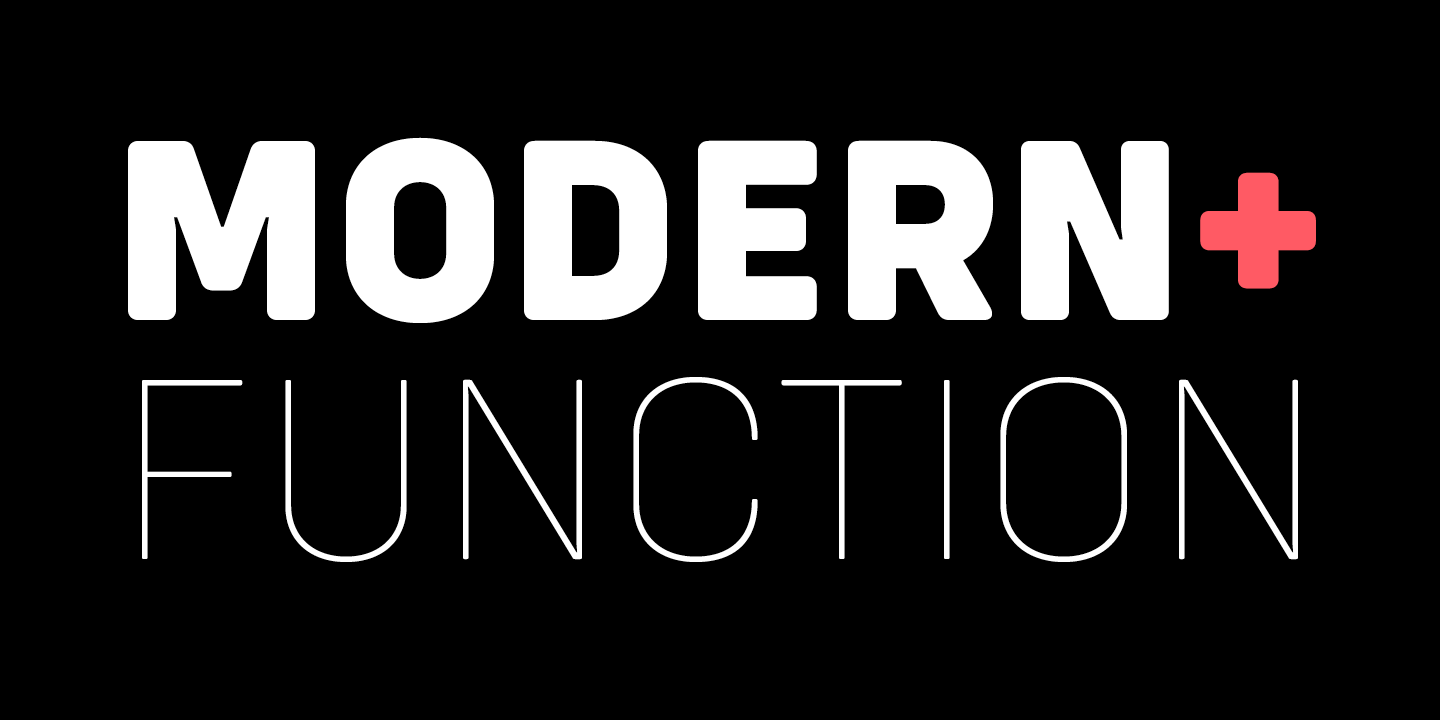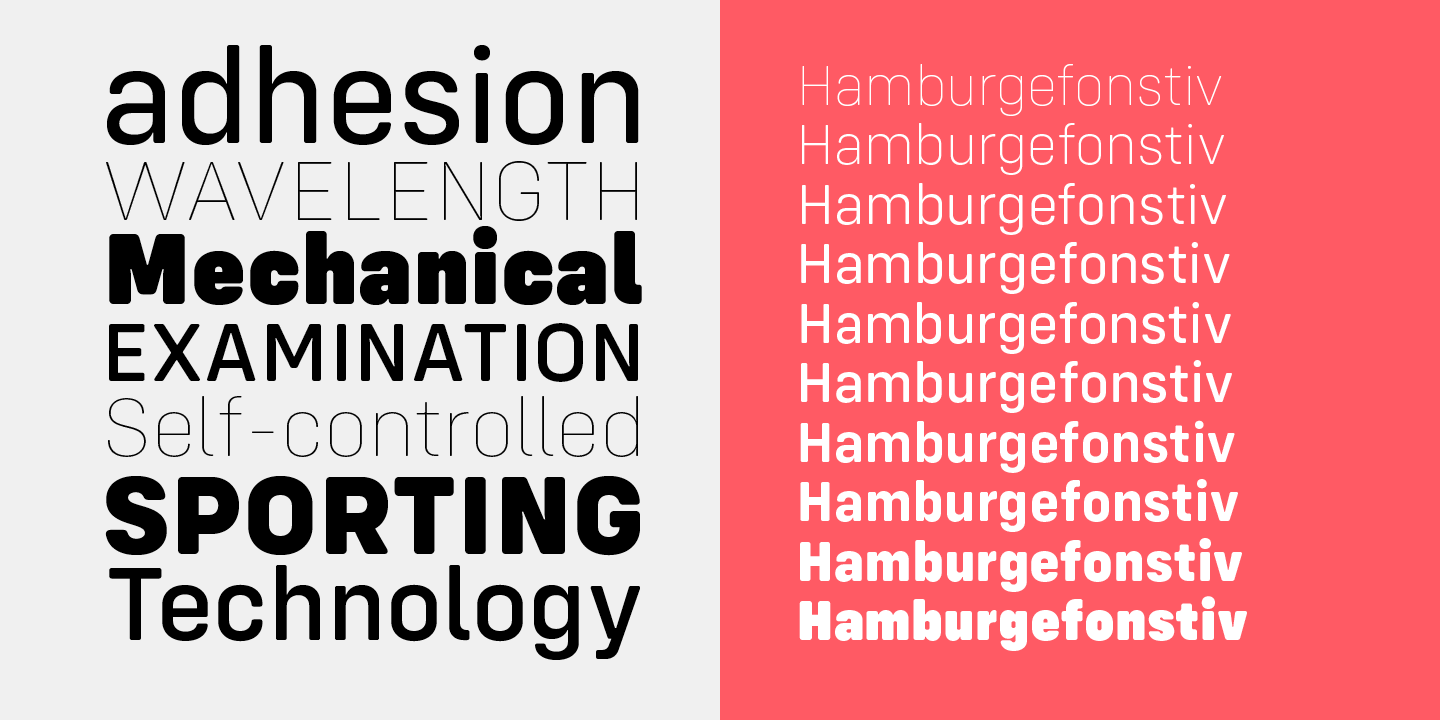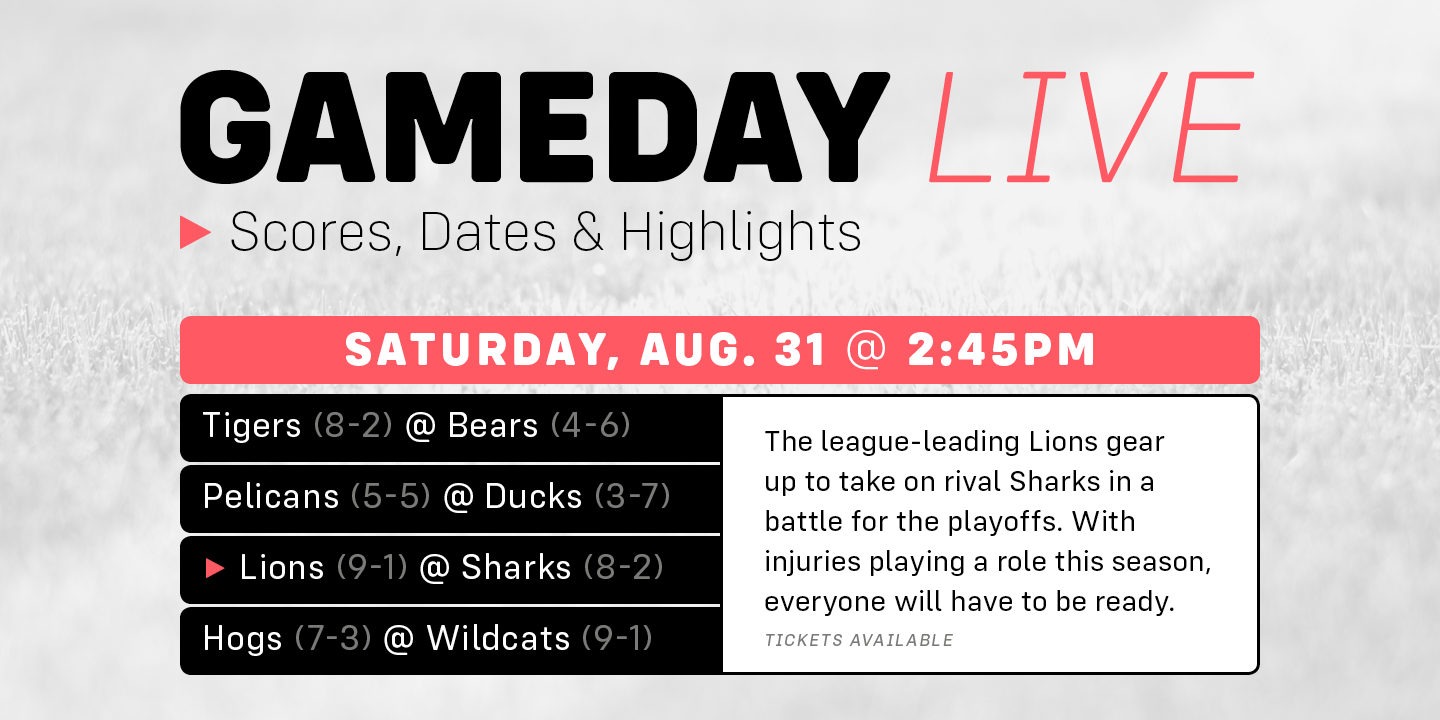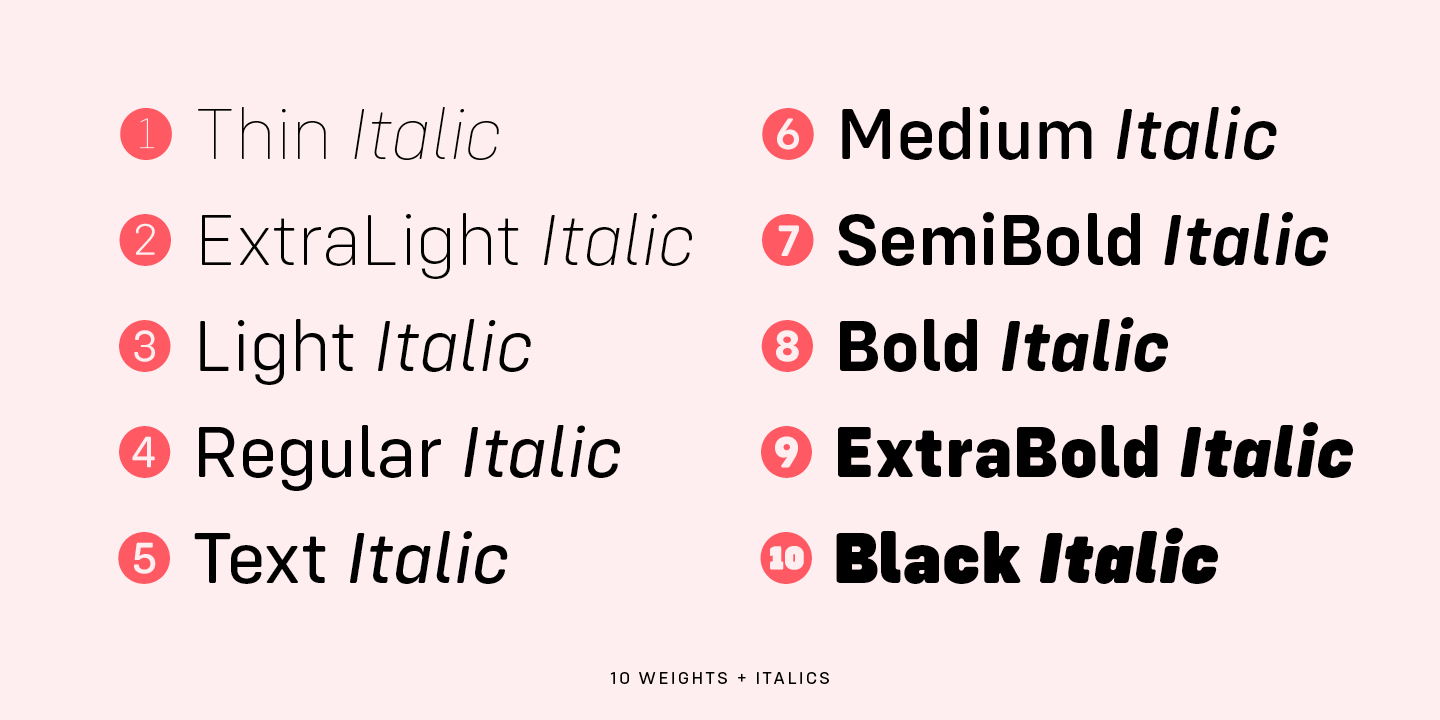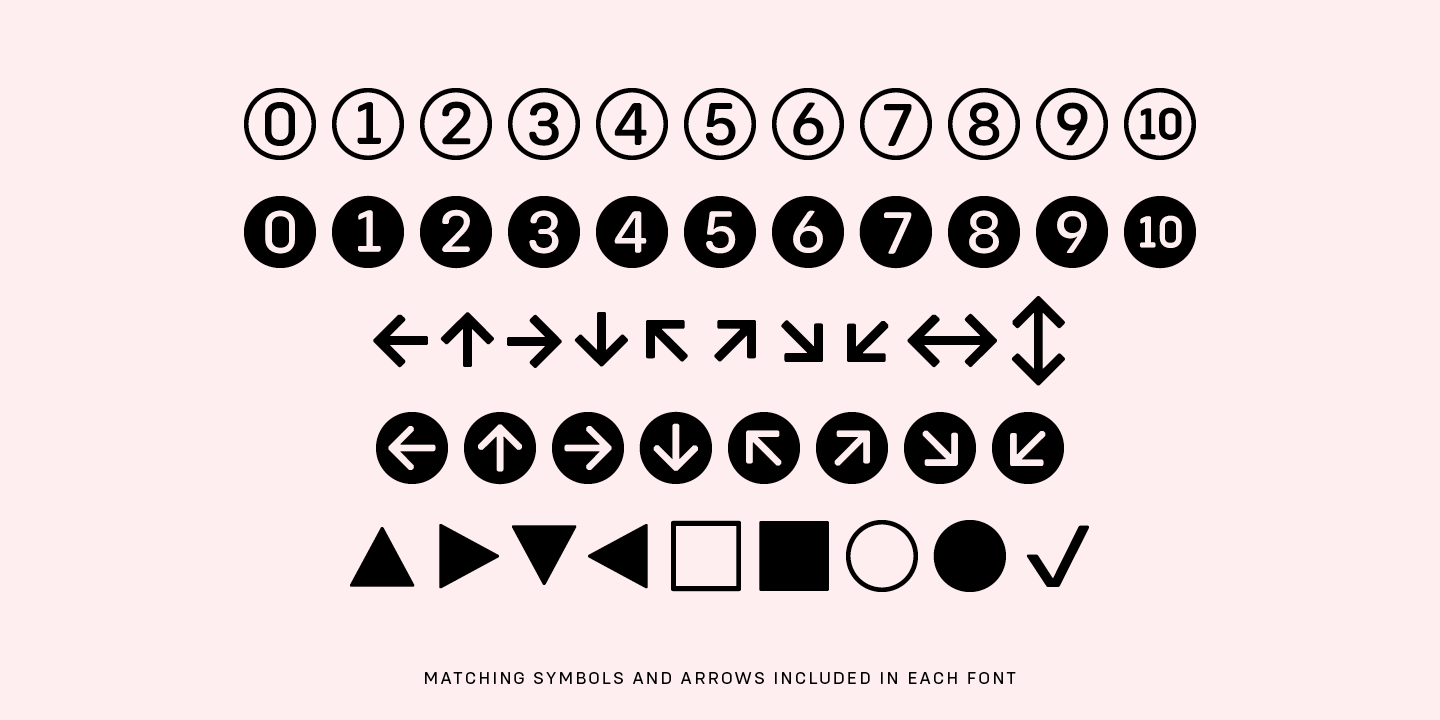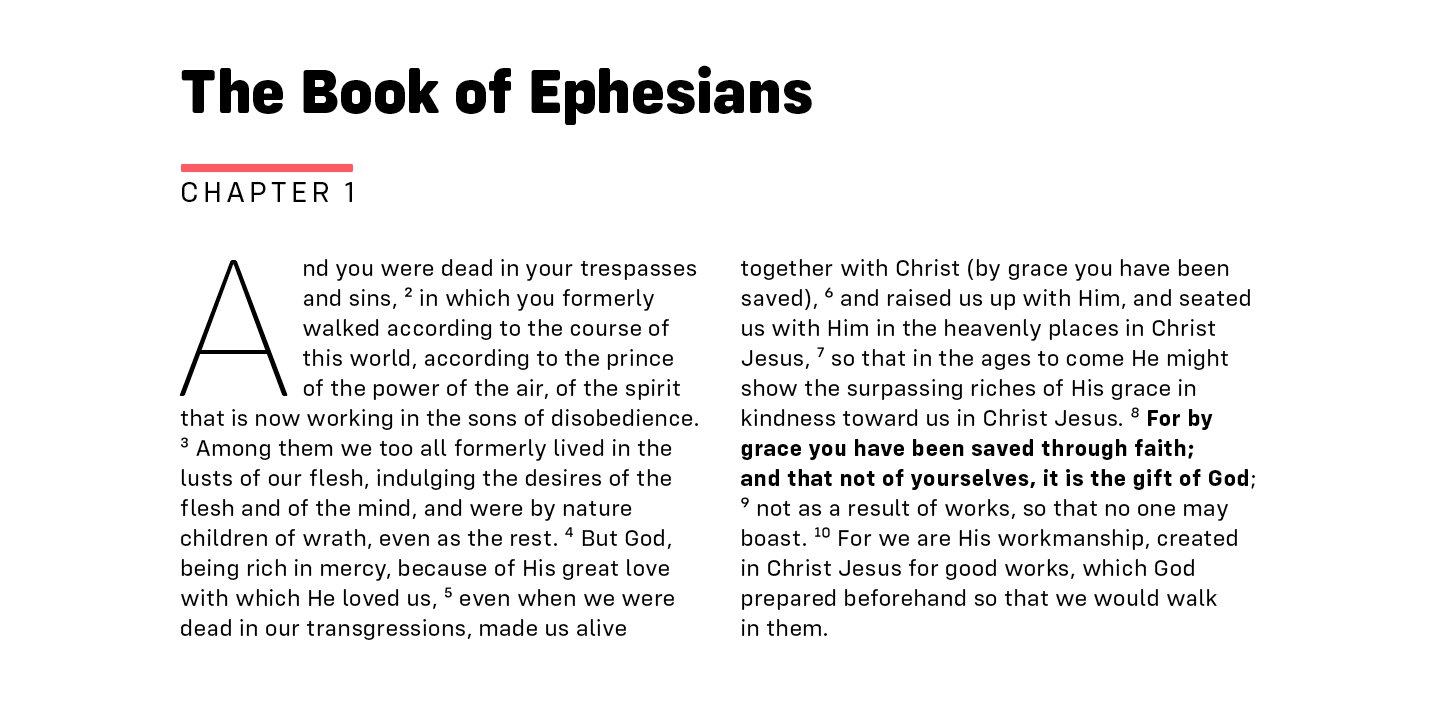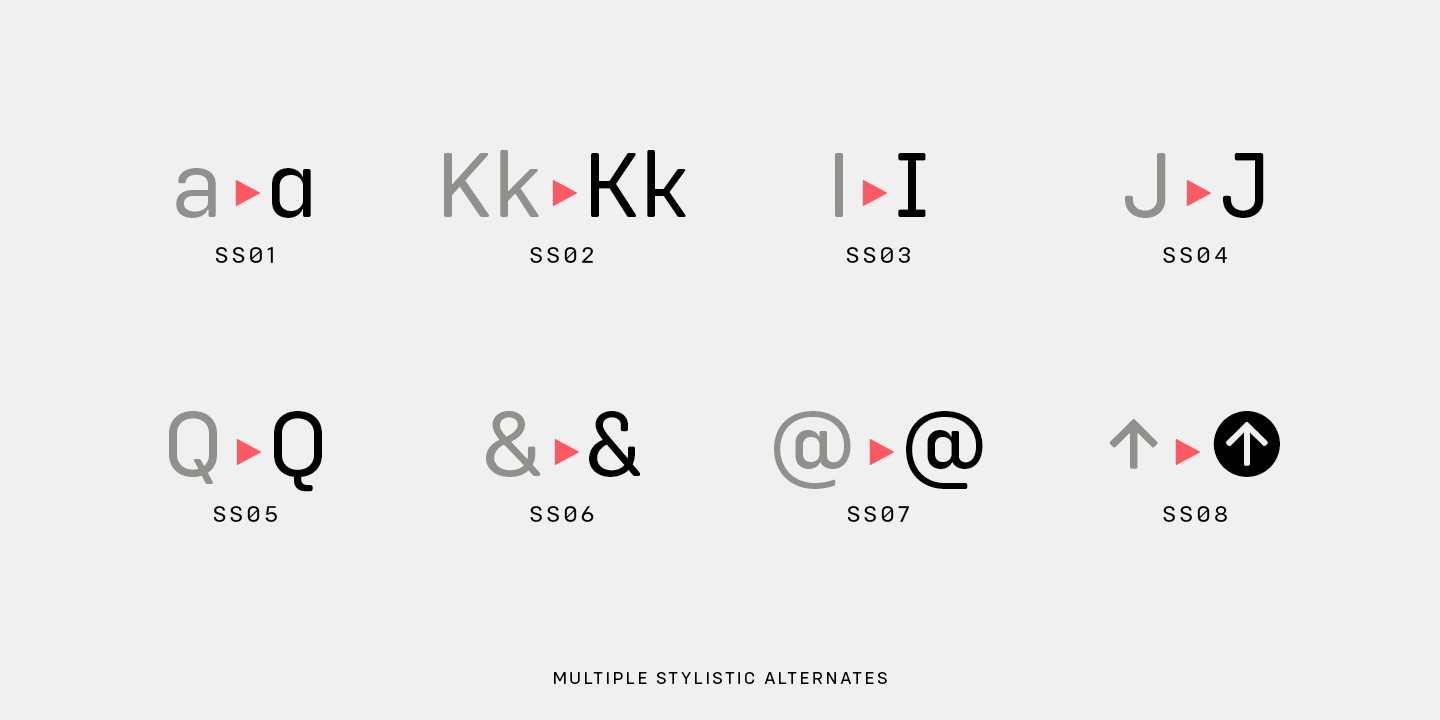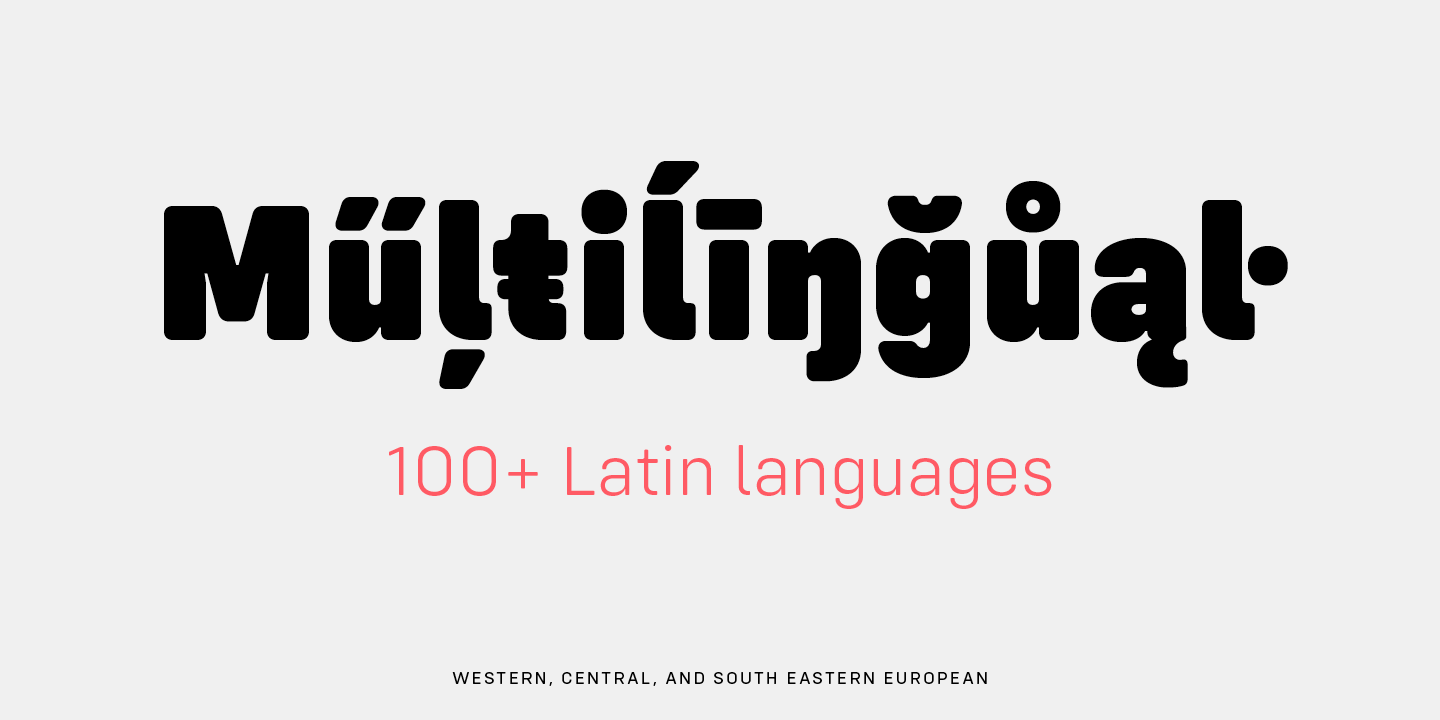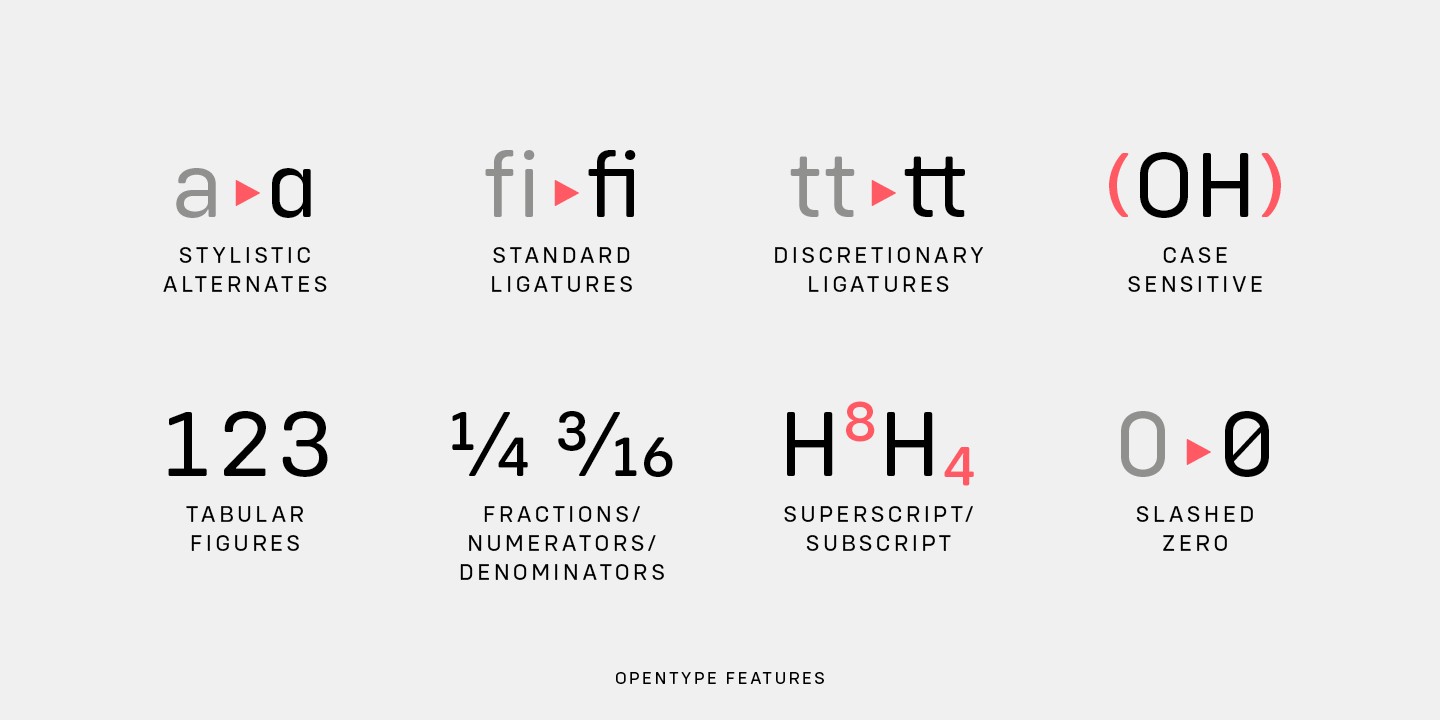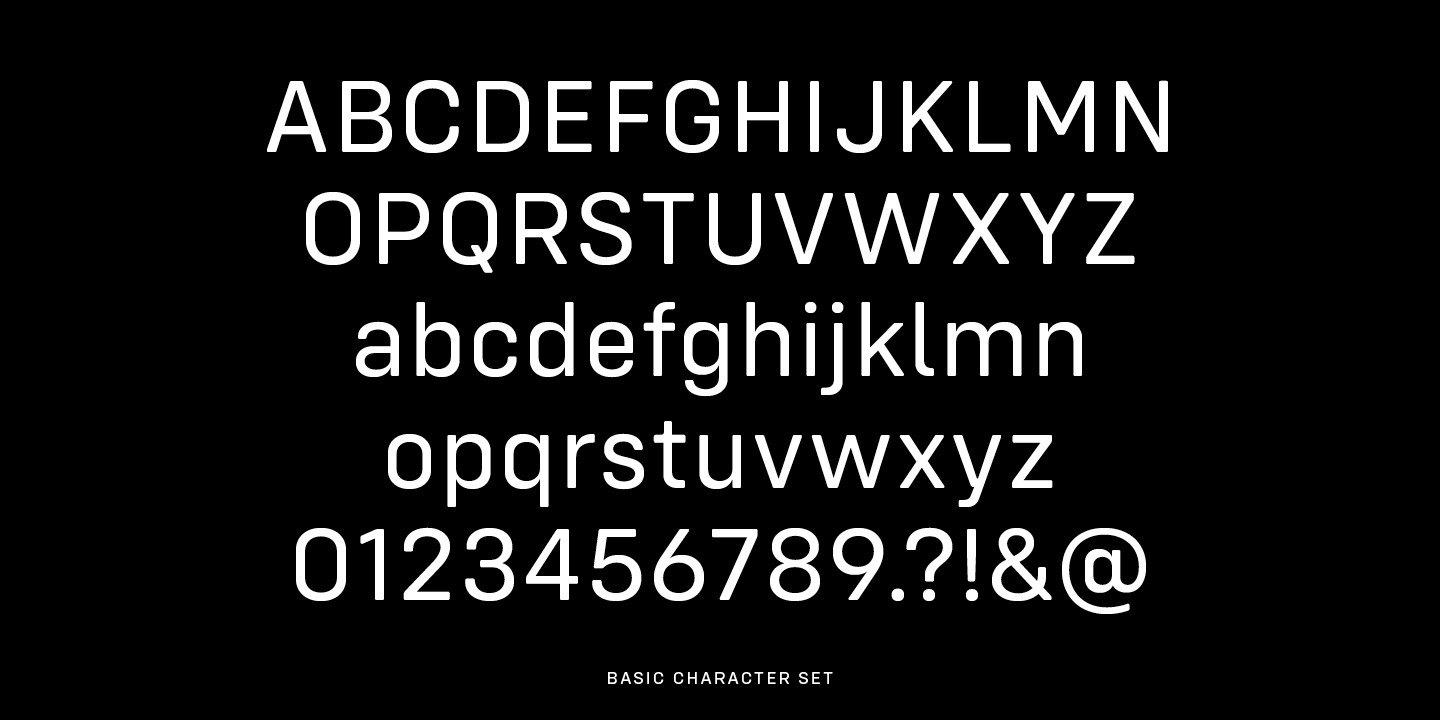
Config Rounded is a condensed geometric sans serif with rounded corners. A sibling to Config, this typeface was influenced by geometric sans serifs with circular forms on the tops and bottoms of characters, but the proportions have been condensed by incorporating straight sides for a design that is sturdy and space-saving. It's efficient yet friendly. Use Config Rounded for a subtle softness that still looks modern and strong. Or use Config for a sharper appearance.
The neutral design of this typeface with subtle details makes it functional for type setting in small and large sizes. With 10 weights (plus italics), there are multiple options to fit the need—black and thin for extreme uses and intermediates for more common needs. It's clean nature allows it to be readable at small sizes, but the touch of character—as seen in the notched joints (like the n and u), rounded details (like the l and t), and horizontal/vertical terminals (like the a and e)—make it interesting at large, display sizes.
Config Rounded includes lots of OpenType features, as well as symbols to enhance your typography: Multiple stylistic alternates (8 stylistic sets). Standard and discretionary ligatures. Case-sensitive punctuation for All Caps. Tabular figures. Fractions, numerators, denominators. Superscript, subscript. Slashed zero. Arrows, circled numbers, geometric shapes.